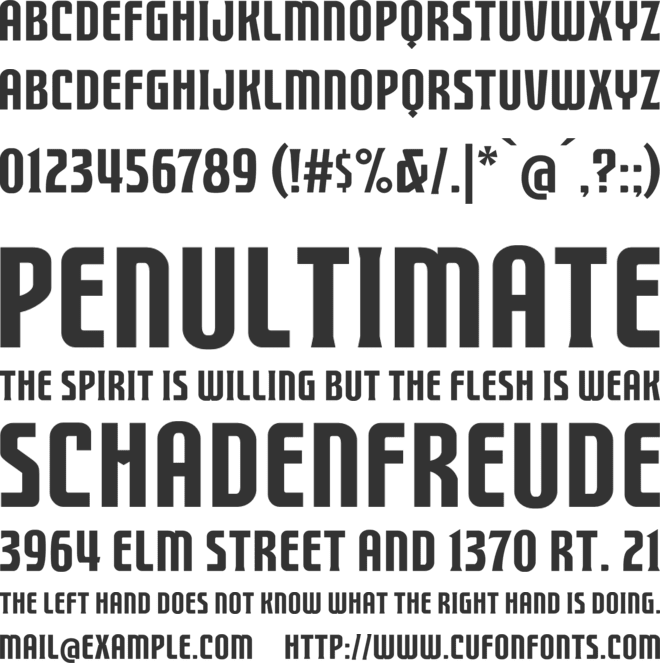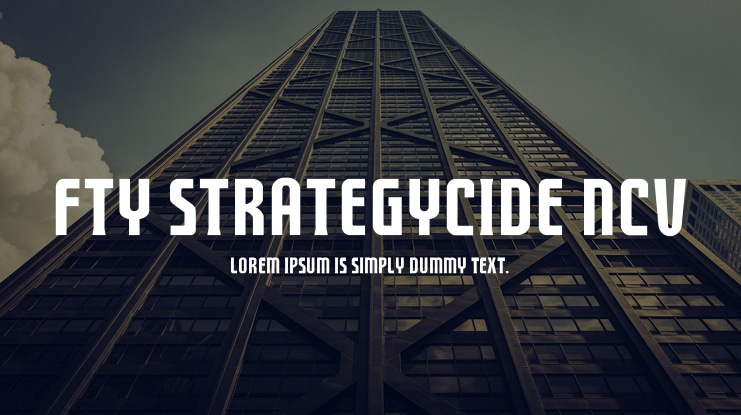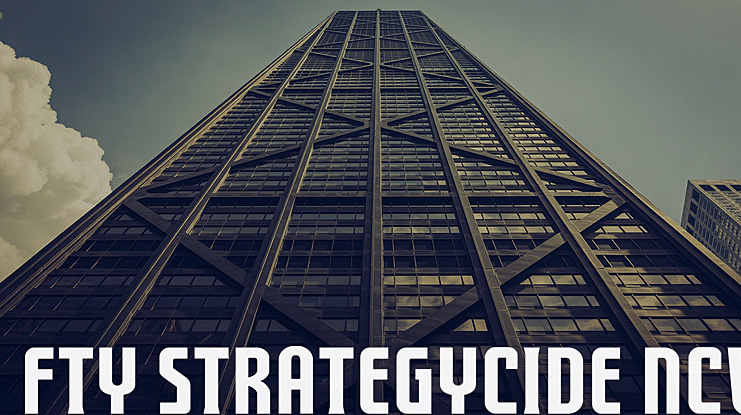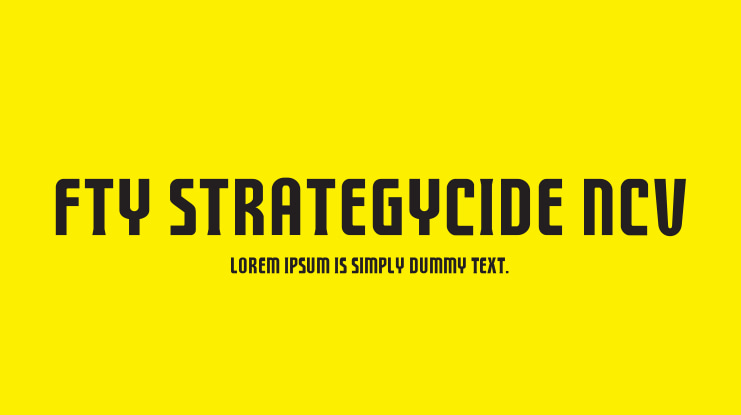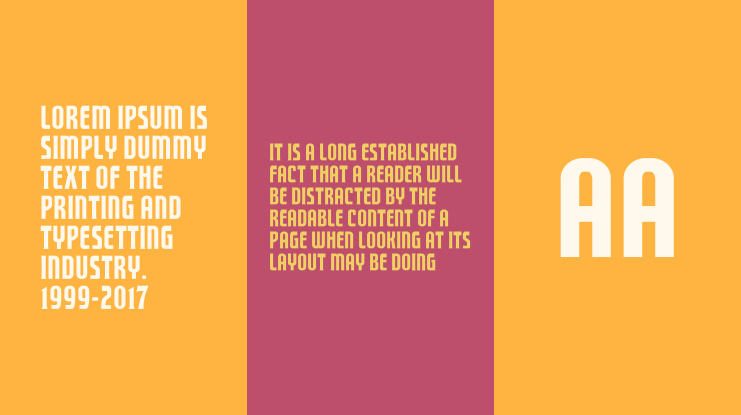
FTY STRATEGYCIDE NCV Font
Anyone can base their font strategy on comic book letterers of old. In fact, the most commonly aped styles tend to be those from the 60s and early 70s. But what about comic book letterers of new? The 80s and a bit beyond?
Well, I jumped forward some, give or take a decade, landing moments ahead of the computer-lettering revolution, and with no strategy in mind except maybe to do myself in on the time expenditure, Strategycide was born. That was 2010.
Jumping forward again to 2018, Strategycide has been reborn as a 4-font family that encompasses a wide range of languages: Central European, Cyrillic, Greek and even Vietnamese. The new version of Strategycide really does have it all, including a ton of OpenType replacement features waiting to be explored.
But the classic look remains. Its got the narrow stance, the gothic style, some hidden sharpies, and it is absolutely in love with thick outlines and deep drop shadows. Its a strong face with a clear strategy. Not one likely to hurt you or finish you off, though. That would be Strategycide.